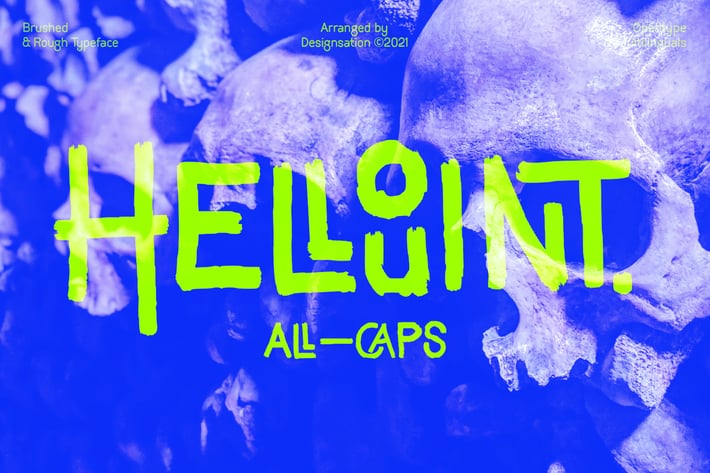
Hellouint Typeface
Hellouint
Spooky and playful typeface, inspired by Halloween vibe. Fit for any Headline needs, especially Social media, Illustration font, Creative Company, Party, Horror, Movie, Motorcycle, Band, also used for printed design, web font, branding, logo type, and Social media promotion.\
The shape reflecting a Horror & Playfulness at the same time, wildness, also brave look for your designs.
Some Open Type features included, like alternates and ligatures, make your design looks authentic as one simply changes from basic character then switch it to activate the feature.